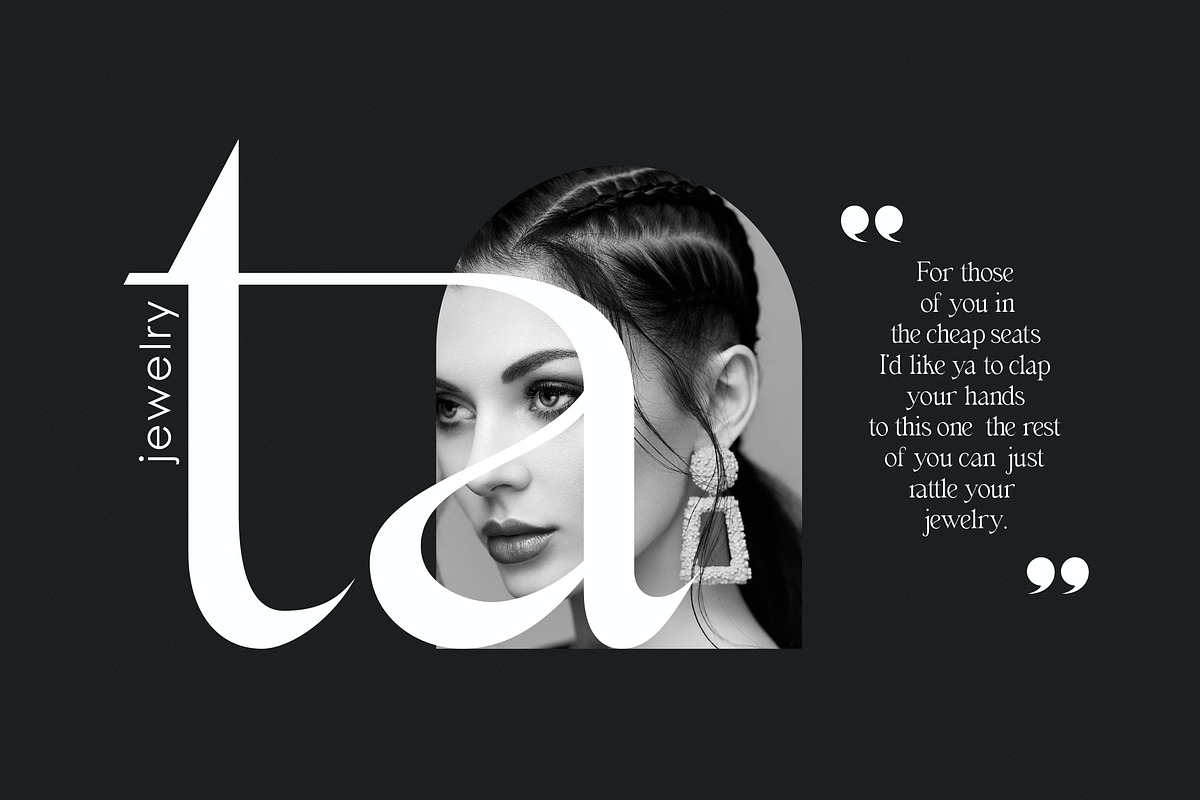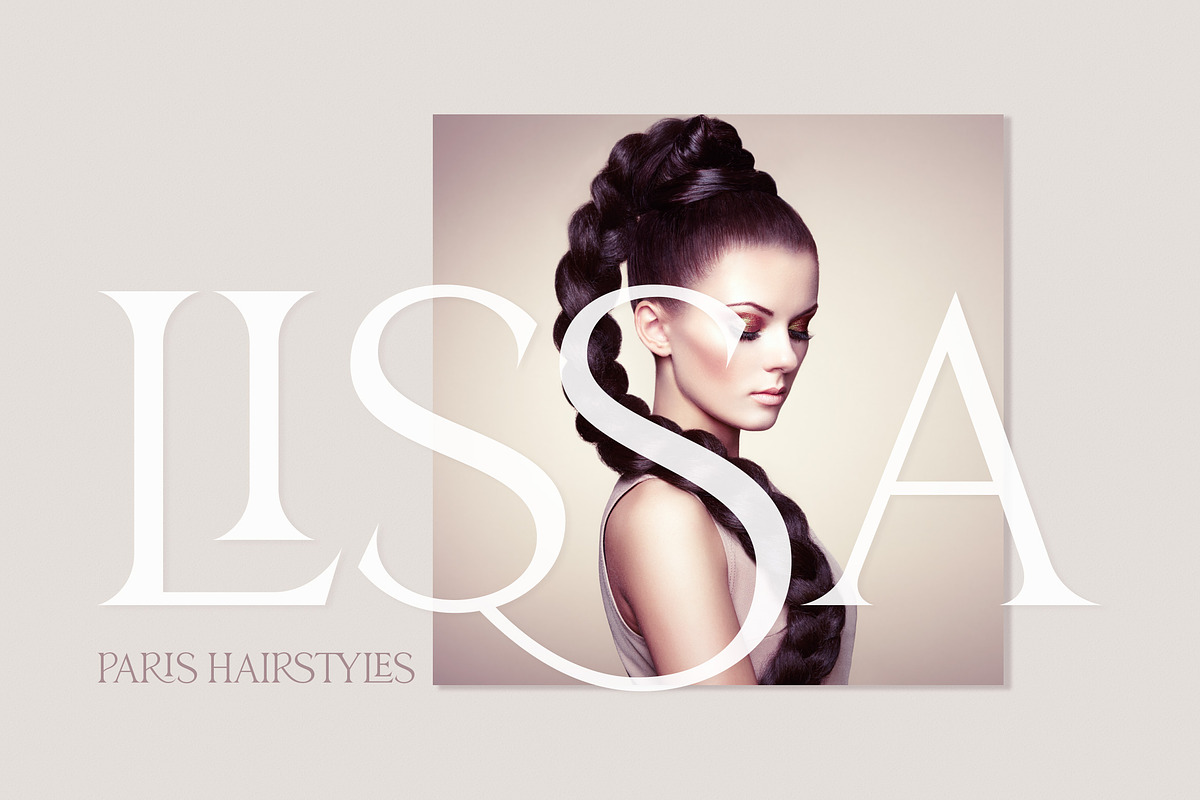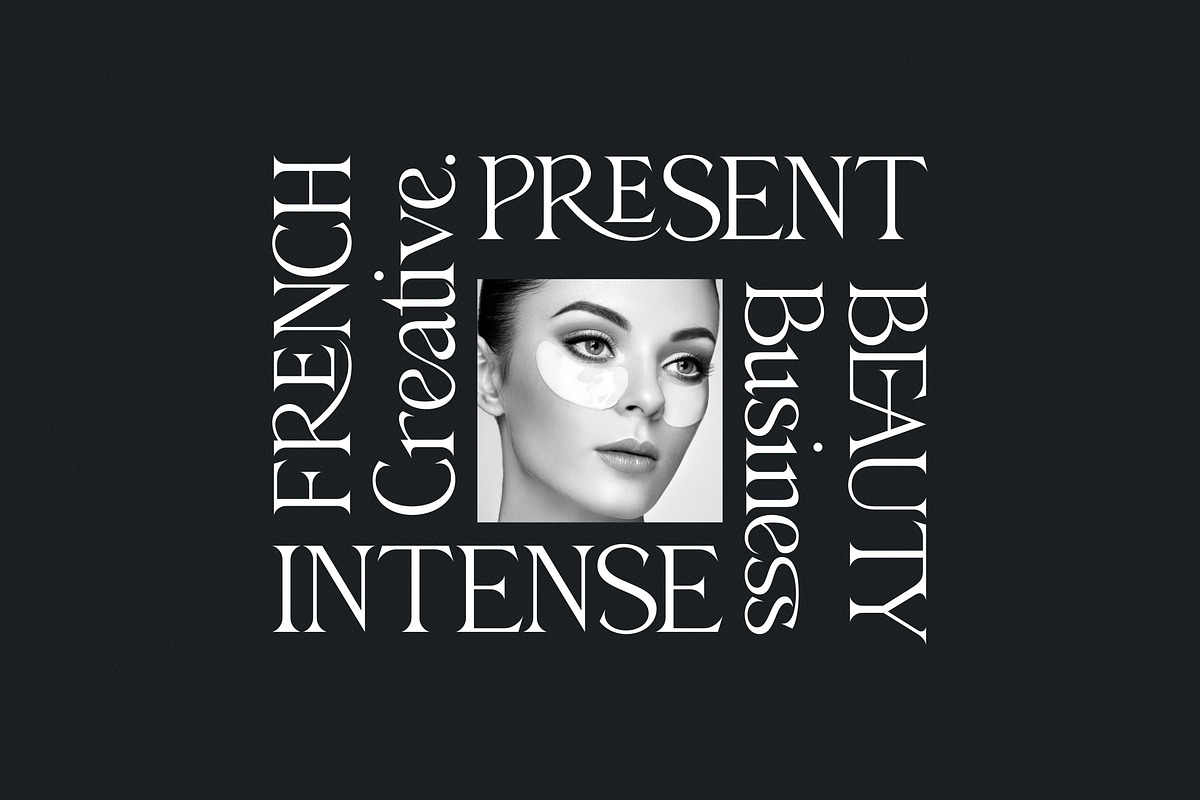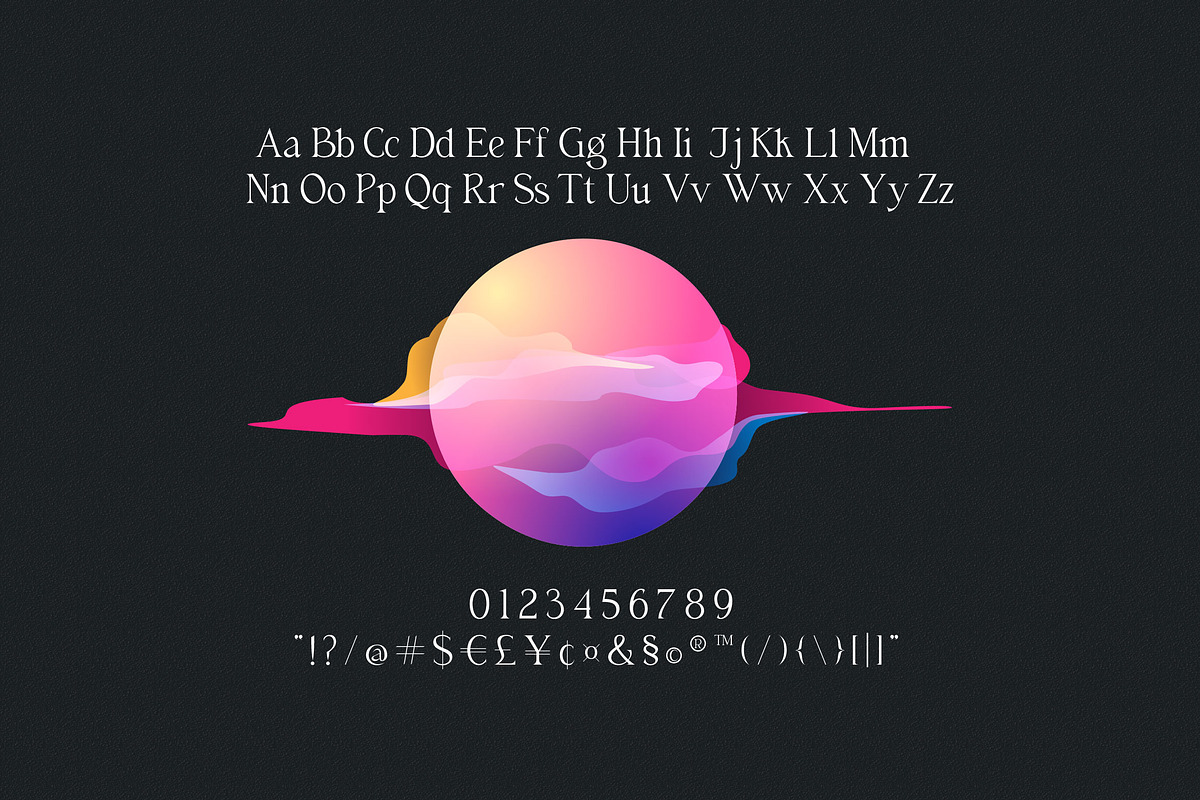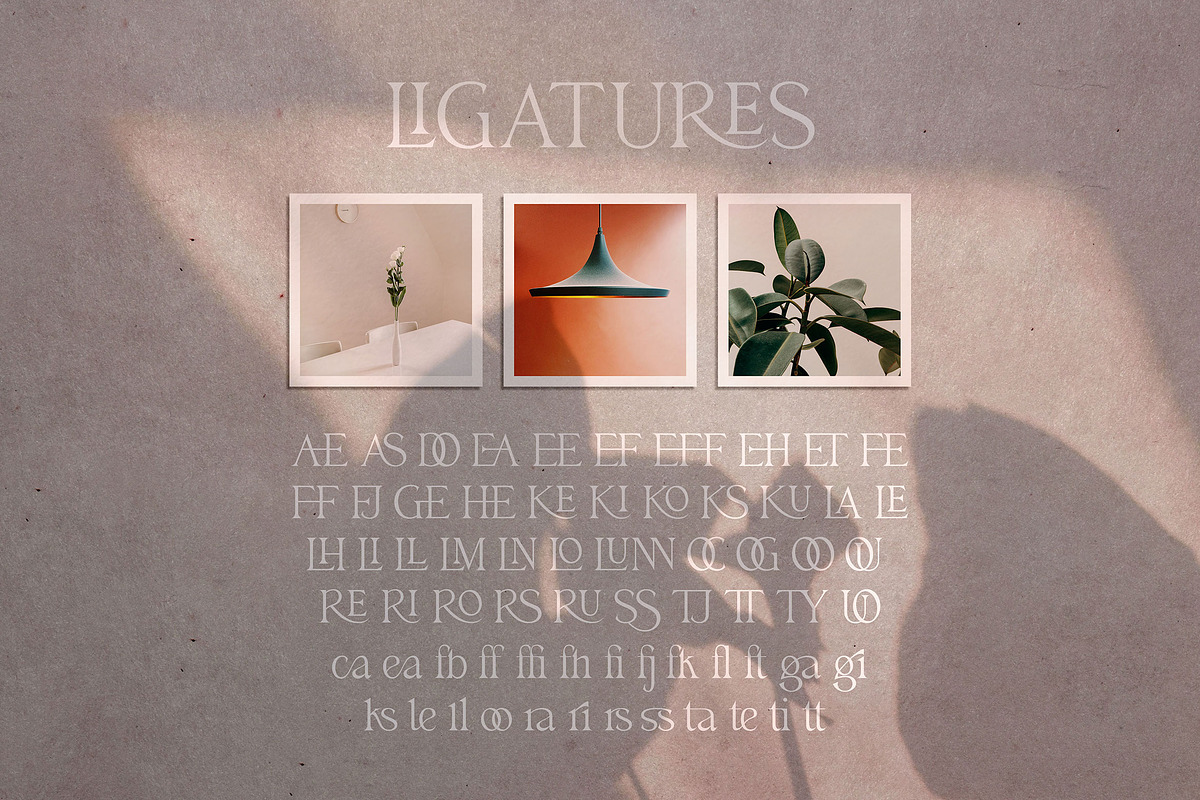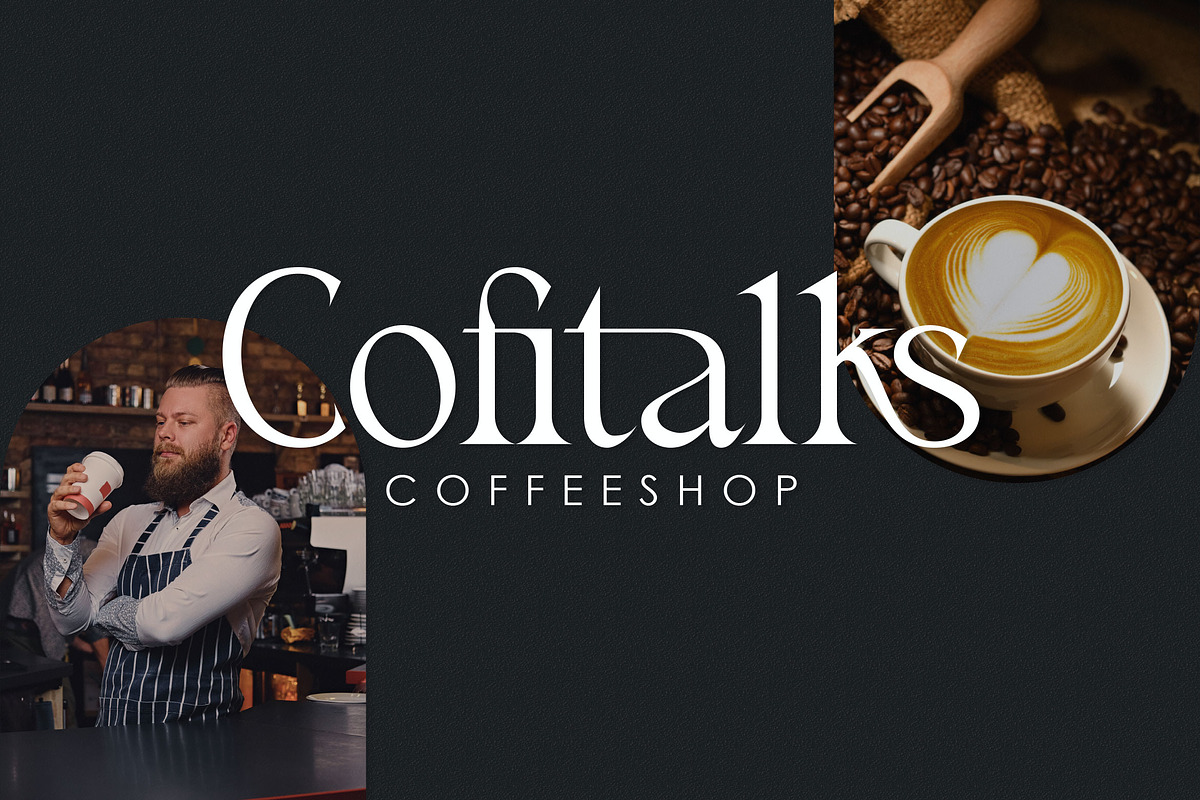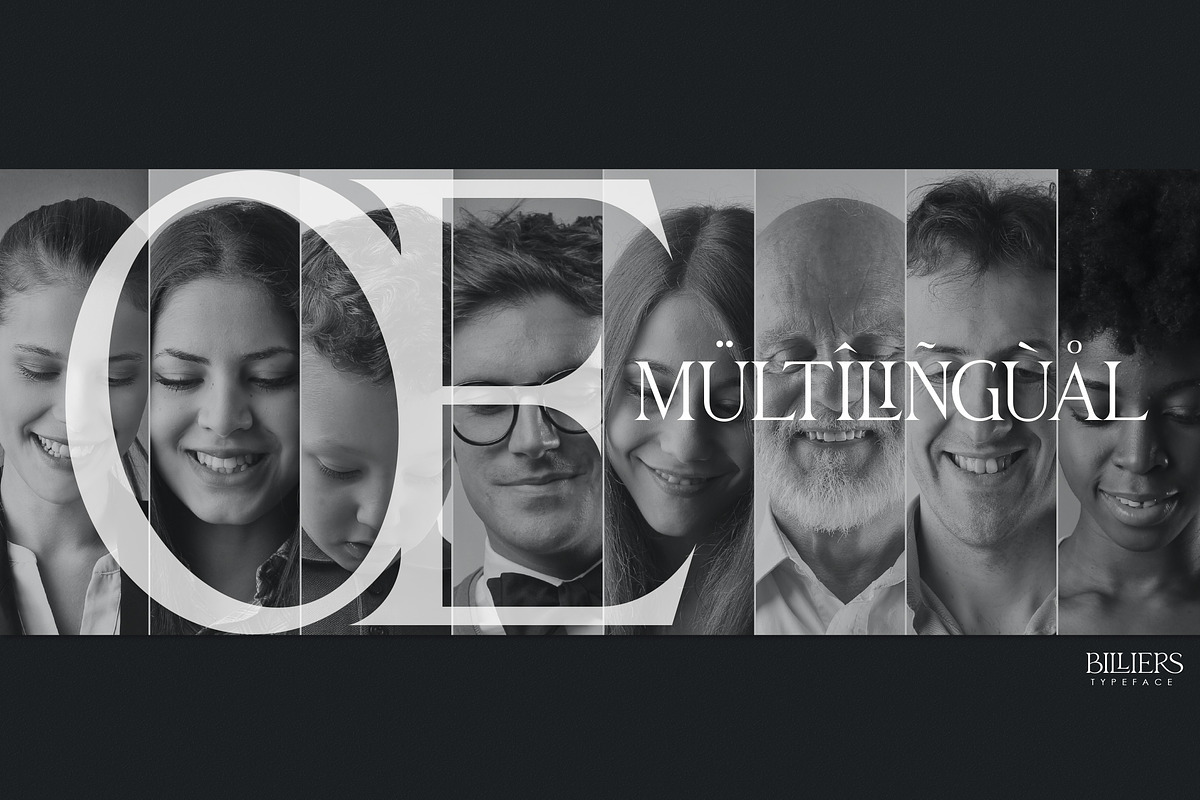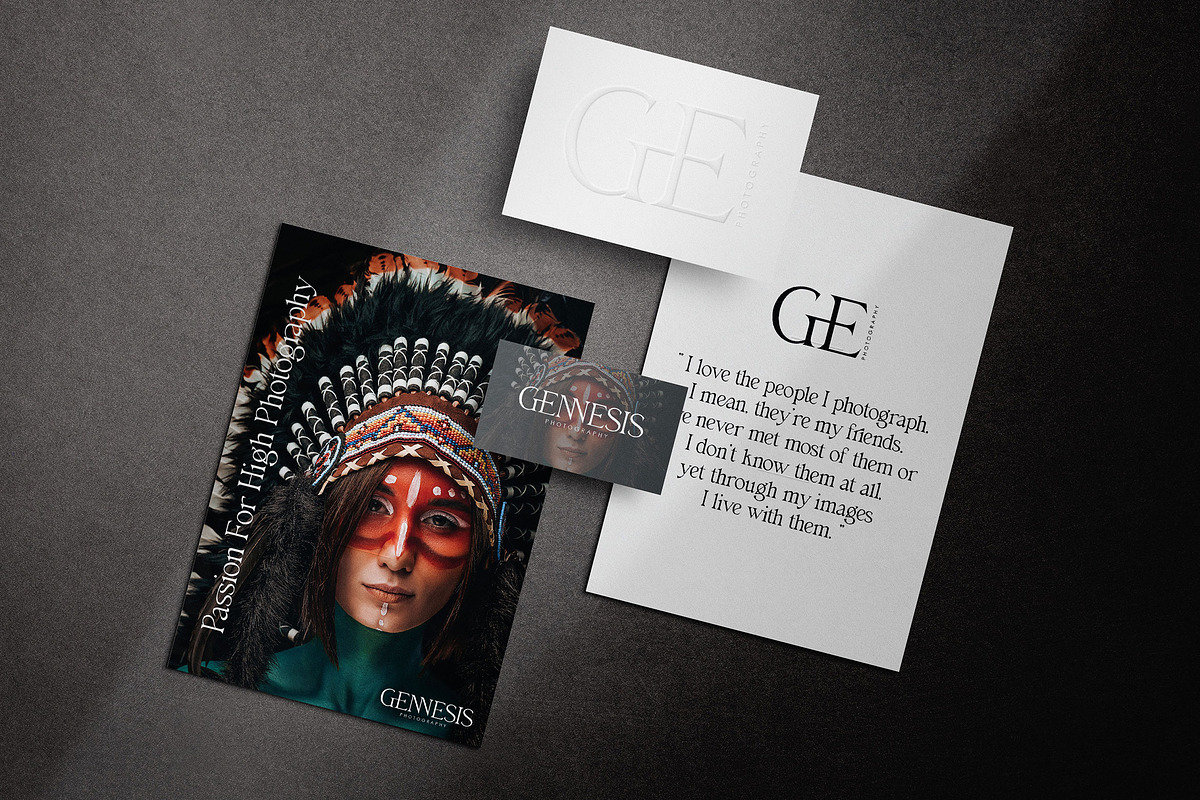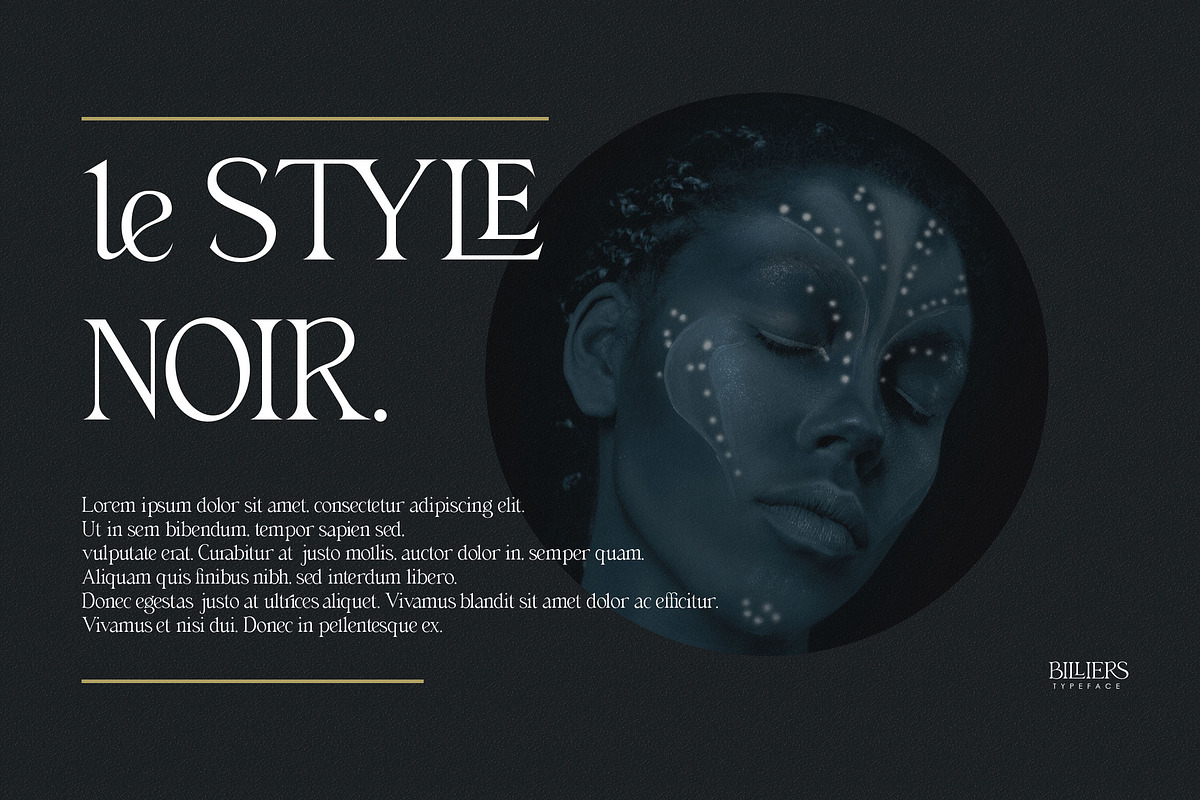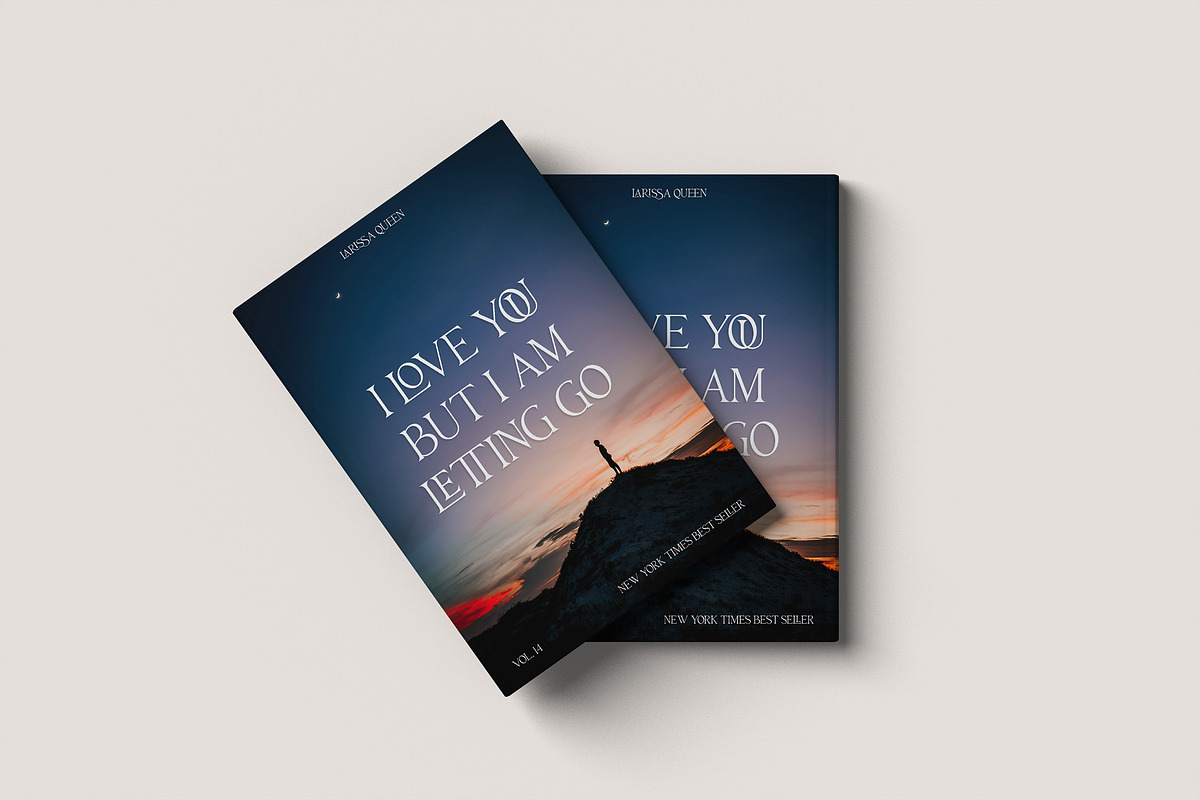
Billiers | Modern Ligature Typeface
Introducing the new Billiers Modern Ligature Typeface!!! Billiers is a luxury and glamour serif typeface. This font is both modern and nostalgic and works great for logos, magazine, social media. Already matched up and ready to be used together for your next design!
For those of you who are needing a touch of elegant, stylish, classy, chic and modernity for your designs, this font was created for you!
Perfect for editorial projects, Logo design, Clothing Branding, product packaging, magazine headers, or simply as a stylish text overlay to any background image.
Current Language Support : Danish, English, Finnish, French, German, German (Switzerland), Norwegian Bokmål, Norwegian Nynorsk, Portuguese, Spanish, Swedish, Swiss German.